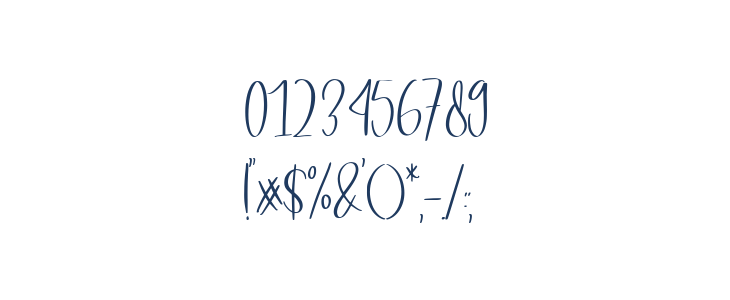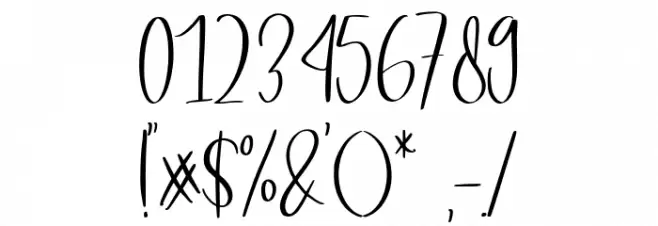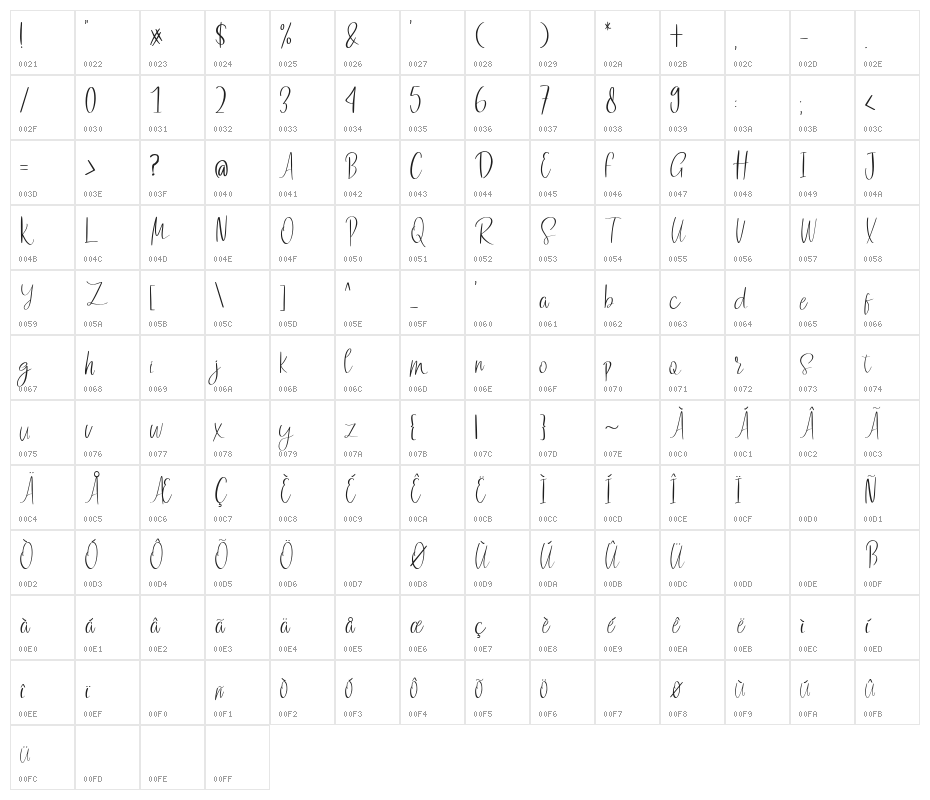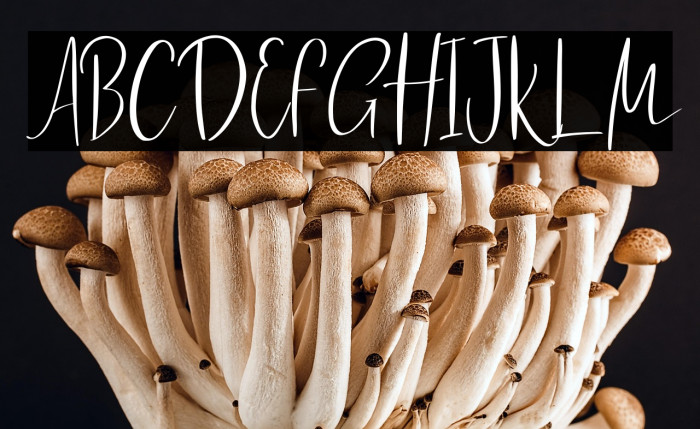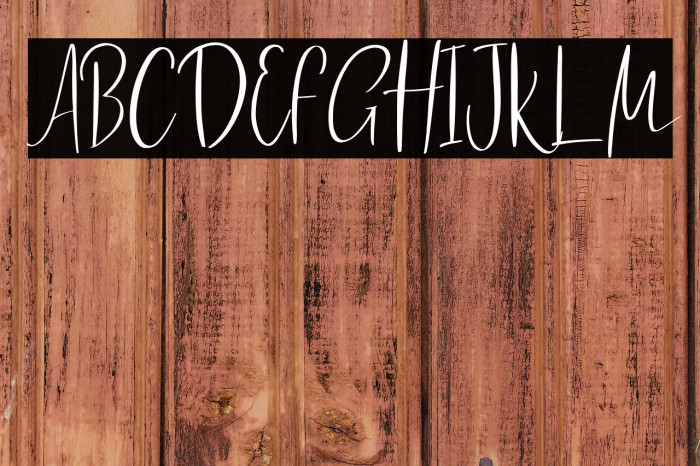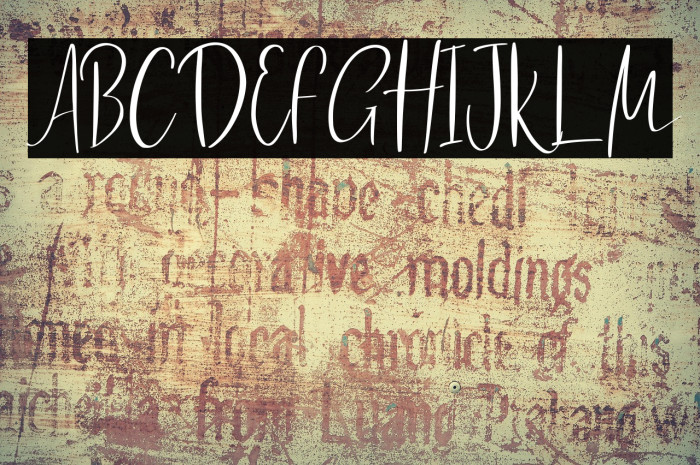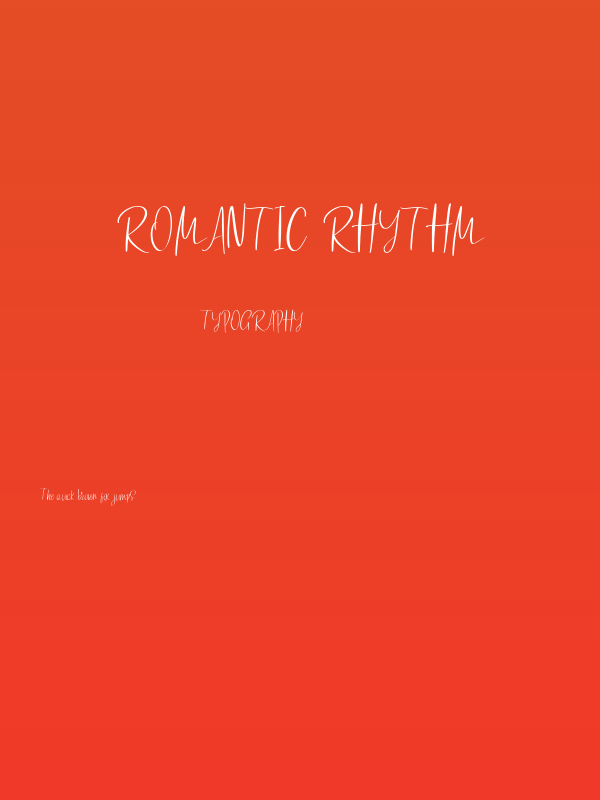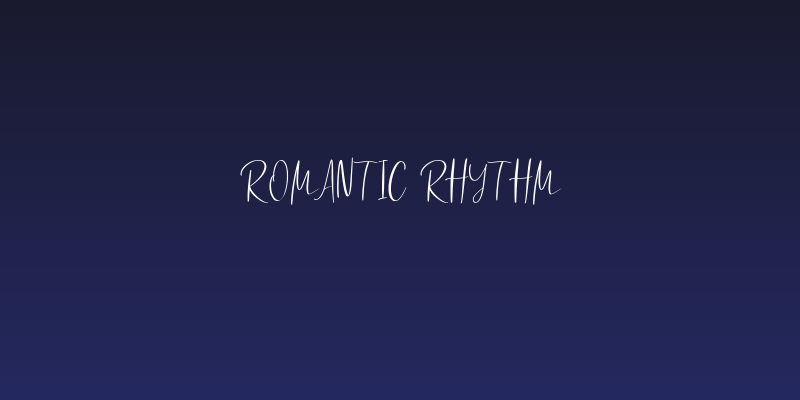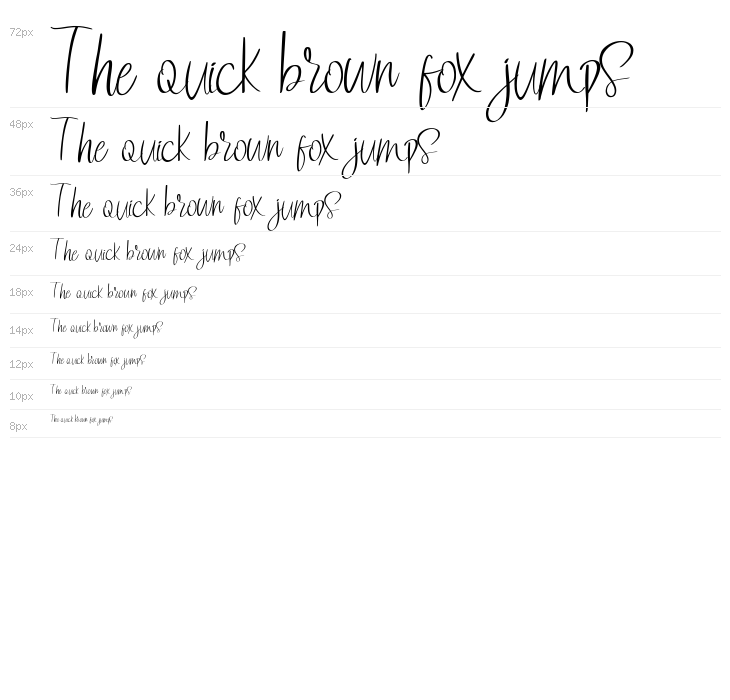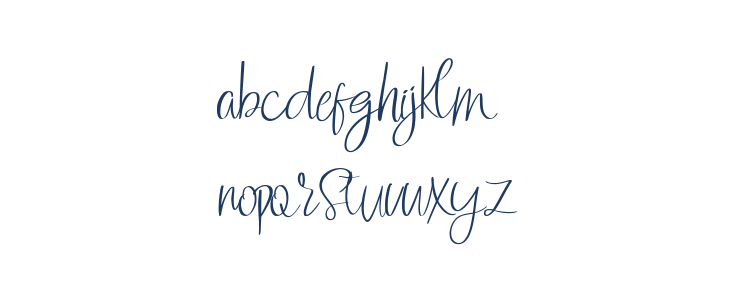
Romantic Rhythm Font
Romantic Rhythm Description
This font exudes a whimsical and elegant charm, characterized by its flowing, cursive style. The letters are crafted with a delicate touch, featuring elongated strokes and subtle curves that give it a graceful appearance. The uppercase letters stand tall with a slight slant, while the lowercase letters maintain a consistent rhythm, enhancing its romantic feel. Numbers and special characters are designed with the same fluidity, ensuring a cohesive look across all elements. The overall design is reminiscent of handwritten calligraphy, making it perfect for projects that require a personal and artistic touch.
| Overall Style | Romantic |
| Proposed Projects | Ideal for wedding invitations, greeting cards, personal branding, and artistic projects. |